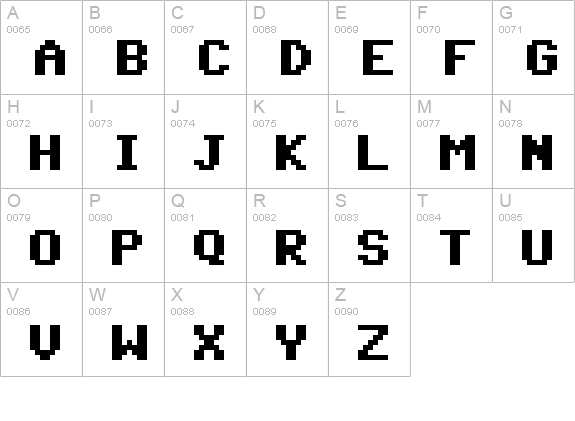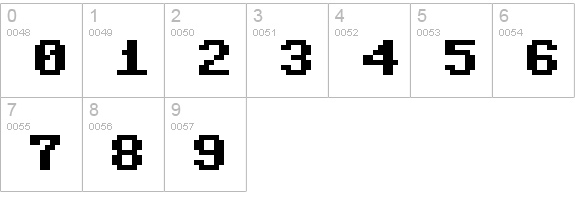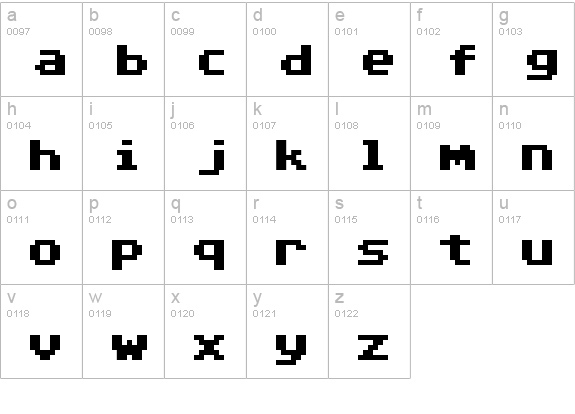
Adore64 Font Details
Adore64 font is a visually striking typeface that beautifully captures the essence of retro computer aesthetics. Its charmingly pixelated design evokes nostalgia for the classic video games and computer interfaces of the 1980s. The crisp, clean lines and sharp edges of Adore64 give it a distinct and memorable look that is perfect for adding a touch of vintage flair to any design project. What makes Adore64 even more appealing is that it is available for free download at FontsMarket.com. This means that you can easily access this unique and eye-catching font to use in your creative endeavors without any cost. Whether you're working on a graphic design project, a website, or simply want to add a fun and playful element to your text, Adore64 is a fantastic choice that won't break the bank. Download Adore64 today and let its retro charm elevate your designs to the next level.